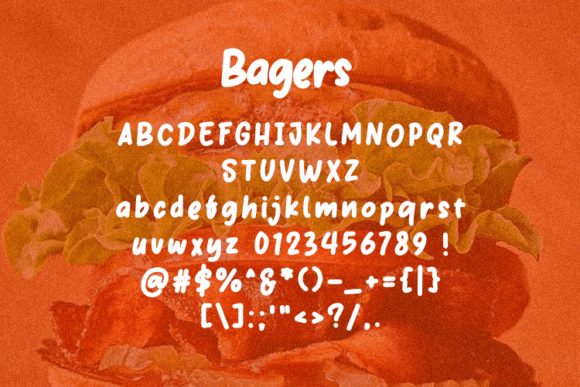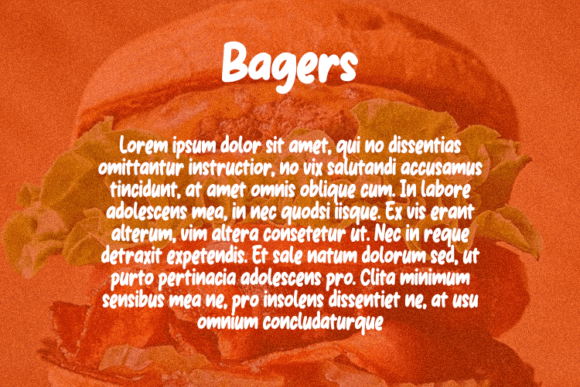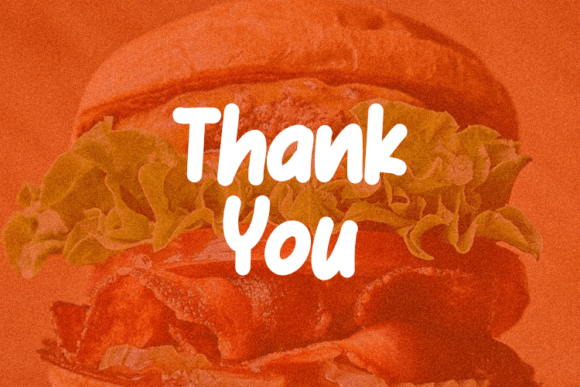
Unleash Your Creativity with the Versatile Bagers Font
Have you ever been stuck in a creative rut, staring at a blank design canvas with no inspiration in sight? It’s a feeling we’ve all been there. But what if I told you that there’s a font that can help spark your imagination and bring your designs to life? Meet the Bagers Font, a game-changing typeface that’s perfect for fashion design and merchandising needs.
Whether you’re a seasoned designer or just starting out, the Bagers Font is an ultra-accessible choice that’s compatible with all types of design software. Its versatility and ease of use make it an indispensable tool for anyone looking to elevate their designs and stand out from the crowd.
Bagers Font Key Features
- Font Family: Bagers is a unique, modern sans-serif font designed for digital use.
- Character Set: Supports a wide range of languages, including Latin, Cyrillic, and Greek scripts.
- Font Size: Available in various sizes, including 12pt, 14pt, 18pt, and 24pt, making it suitable for both body text and headings.
- Unique Characteristics: Features a distinctive, rounded design with a subtle flair at the terminals, giving it a friendly and approachable feel.
Bagers Font Review
Overall, I’d say Bagers Font is a decent addition to any designer’s toolkit. It has a unique, quirky charm that can add some personality to your designs. ✨ The font’s bold lines and geometric shapes make it perfect for use in headings and titles, and it’s also great for creating a sense of energy and playfulness in your design.
- ✨ Unique and quirky design that can add personality to your designs
- ✨ Bold lines and geometric shapes make it perfect for headings and titles
- ✨ Great for creating a sense of energy and playfulness in your design
- ⚠️ Limited font sizes and weights available
- ⚠️ May not be suitable for use in body text, due to its bold and playful nature
- ⚠️ Not as versatile as some other fonts, due to its unique design
In conclusion, while Bagers Font has its limitations, it’s a great choice for designers who want to add some personality and whimsy to their designs. Just be mindful of its limitations and use it in the right contexts. Overall, I’d give it 3.5 out of 5 stars.
Bagers Font is ideal for use in headings, titles, and other large text elements. It is also suitable for use in creative and artistic projects, such as posters, flyers, and social media graphics.
Tips for Getting the Most Out of Bagers Font
Use Bagers Font in combination with bold or italic styles to add emphasis and visual interest. Experiment with different font sizes and colors to create a unique and eye-catching look.
Alternatives to Bagers Font
Montserrat is a sans-serif font designed by Julieta Ulanovsky. It is a modern and clean font, ideal for digital applications, web design, and advertising. Montserrat is more geometric and structured than Bagers Font, making it suitable for headlines and titles.
Open Sans is a modern sans-serif font designed by Steve Matteson. It is highly legible and versatile, suitable for a wide range of applications, including web design, print materials, and digital products. Open Sans is more rounded and friendly than Bagers Font, making it ideal for body text and paragraphs.
Inter is a modern sans-serif font designed by Rasmus Andersson. It is highly legible and adaptable, suitable for digital applications, web design, and print materials. Inter is more minimalist and neutral than Bagers Font, making it suitable for corporate branding and identity design.
Lato is a sans-serif font designed by Łukasz Dziedzic. It is a modern and elegant font, ideal for web design, digital applications, and print materials. Lato is more rounded and friendly than Bagers Font, making it suitable for body text and paragraphs, but it lacks the geometric structure of Bagers Font, making it less suitable for headlines and titles.